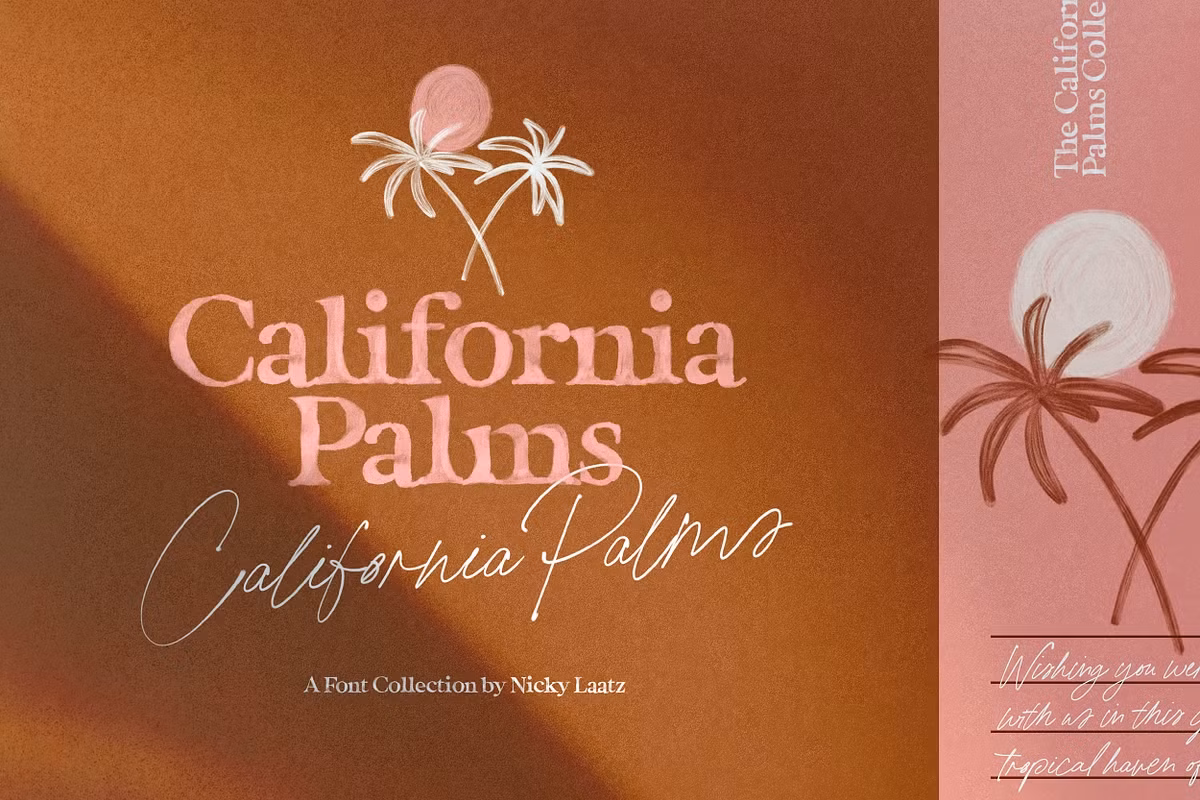
California Palms Fonts & Graphics Free Download is a breezy and stylish font and graphic set inspired by sun-soaked coastlines and laid-back West Coast vibes. Featuring a relaxed script font paired with playful sans or display lettering, this bundle is perfect for summer branding, beach-themed merchandise, Instagram content, travel blogs, and lifestyle packaging.
California Palms Fonts & Graphics Free Download comes with a set of coordinating graphic elements—like palm trees, waves, and sun icons—that add a fun, cohesive look to your projects. Whether you're designing a logo for a beachwear brand or creating vacation-ready printables, this font and graphics pack brings the sunshine with every detail. Download it today and bring some California cool to your next creative project.